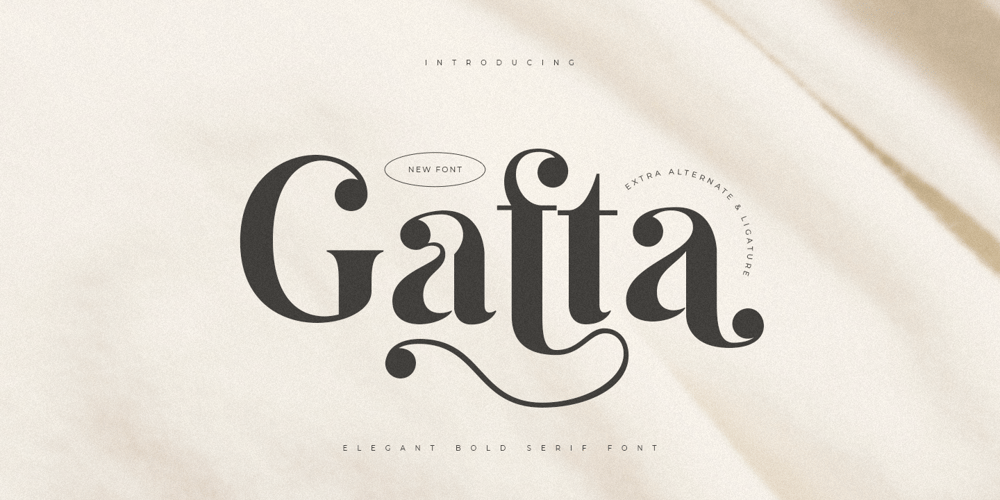
Gafta Font Family was designed by Zamroni Hamzah and published by Sensatype Studio. Gafta contains 1 styles and family package options. An Elegant Bold Serif font that we created special for elegant branding needs, with unique shape will be ready to add value of your brand. It so nice to leverage designer or product owner that need solutions to make their design look more stylish and modern. And specially for Gafta font, We prepared any characters to help you create unlimited variations for your creative needs.Gafta Elegant Bold Serif Font ready with: Ready with Alternate Characters Preview as a inspirations that you can do with Gafta font Ready with Lowercase and Uppercase characters Wish you enjoy our font. 🙂